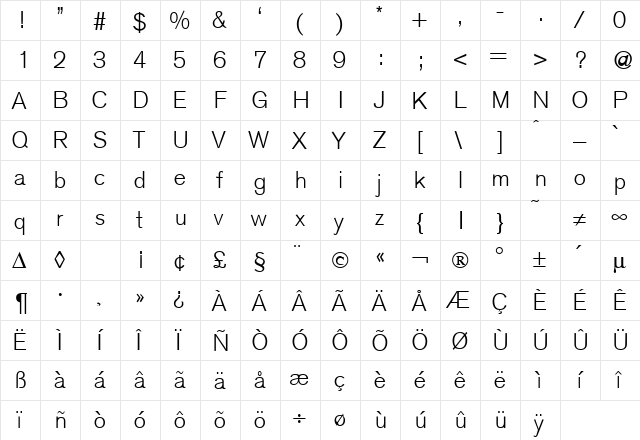
AkzentLight Regular
Design Context for AkzentLight Typeface
AkzentLight takes a measured approach to typography — its balanced proportions and neutral character make it a reliable workhorse for both digital and print work. The delicate stroke weight brings airiness and refinement to layouts.
Pro Tip: Use AkzentLight in both headline and body roles to test its range before committing to a single application.